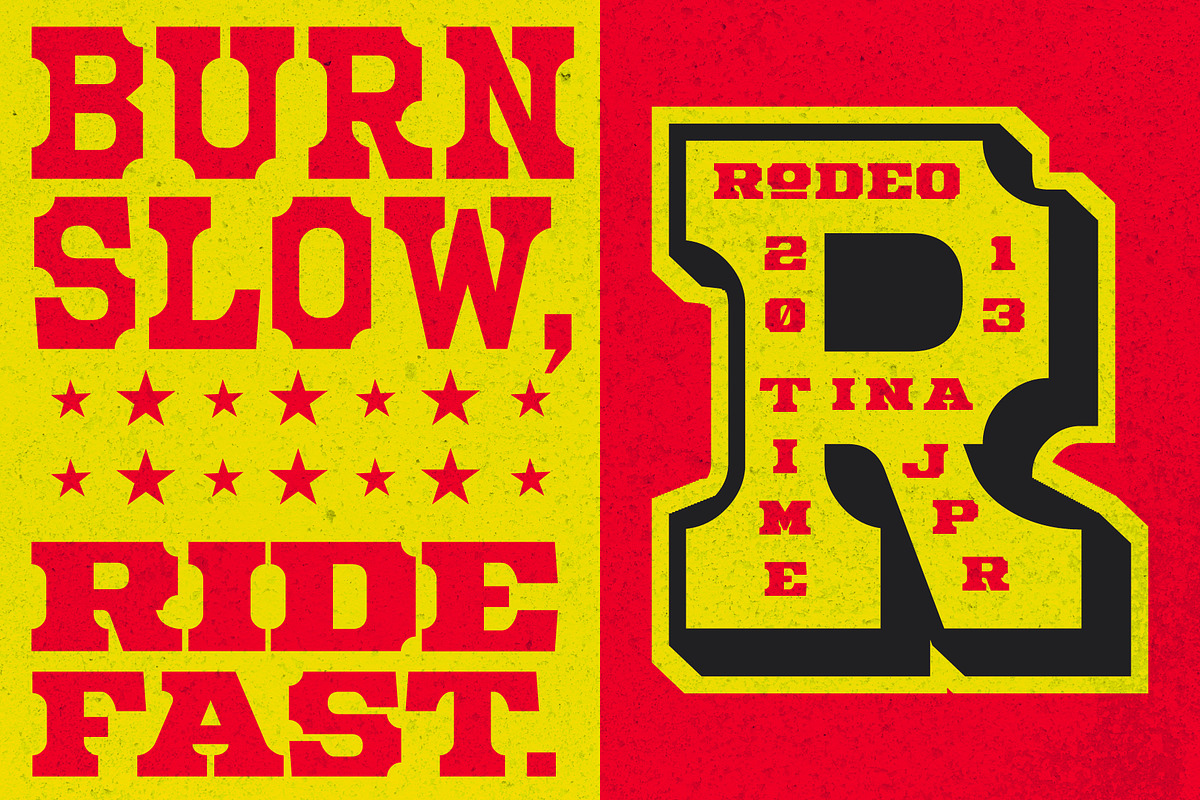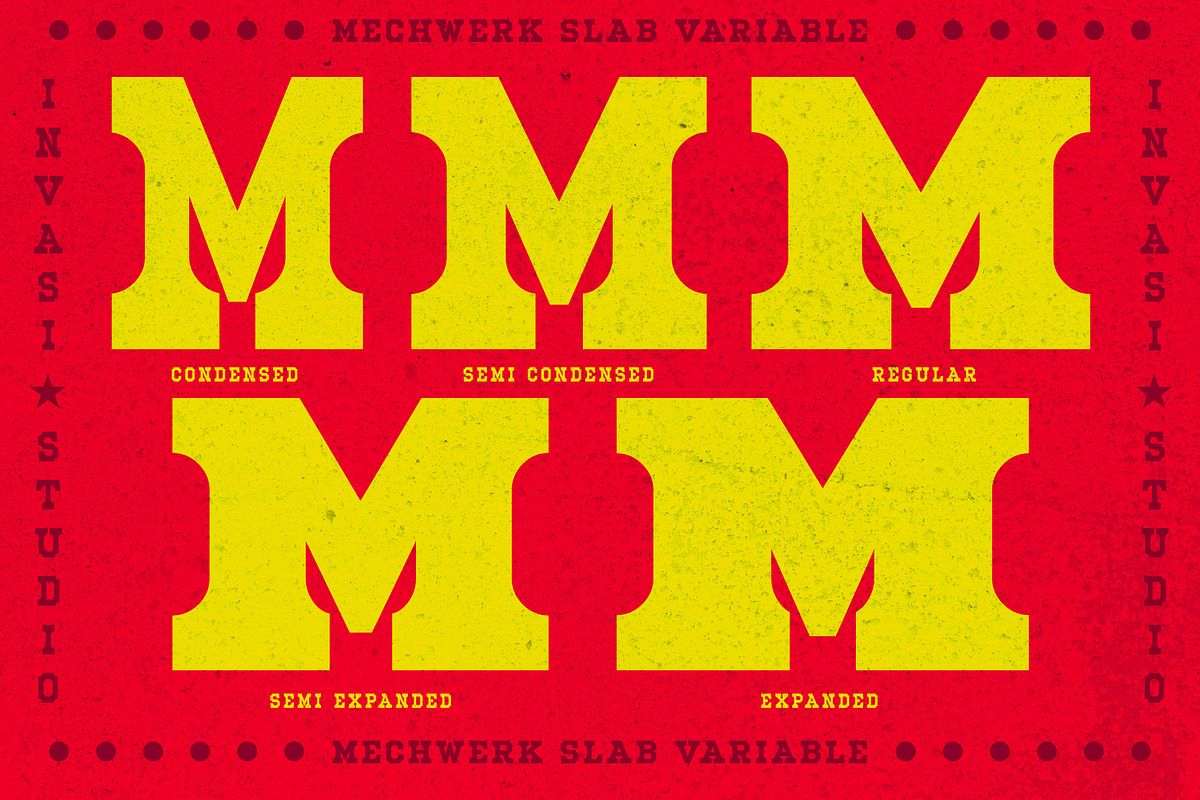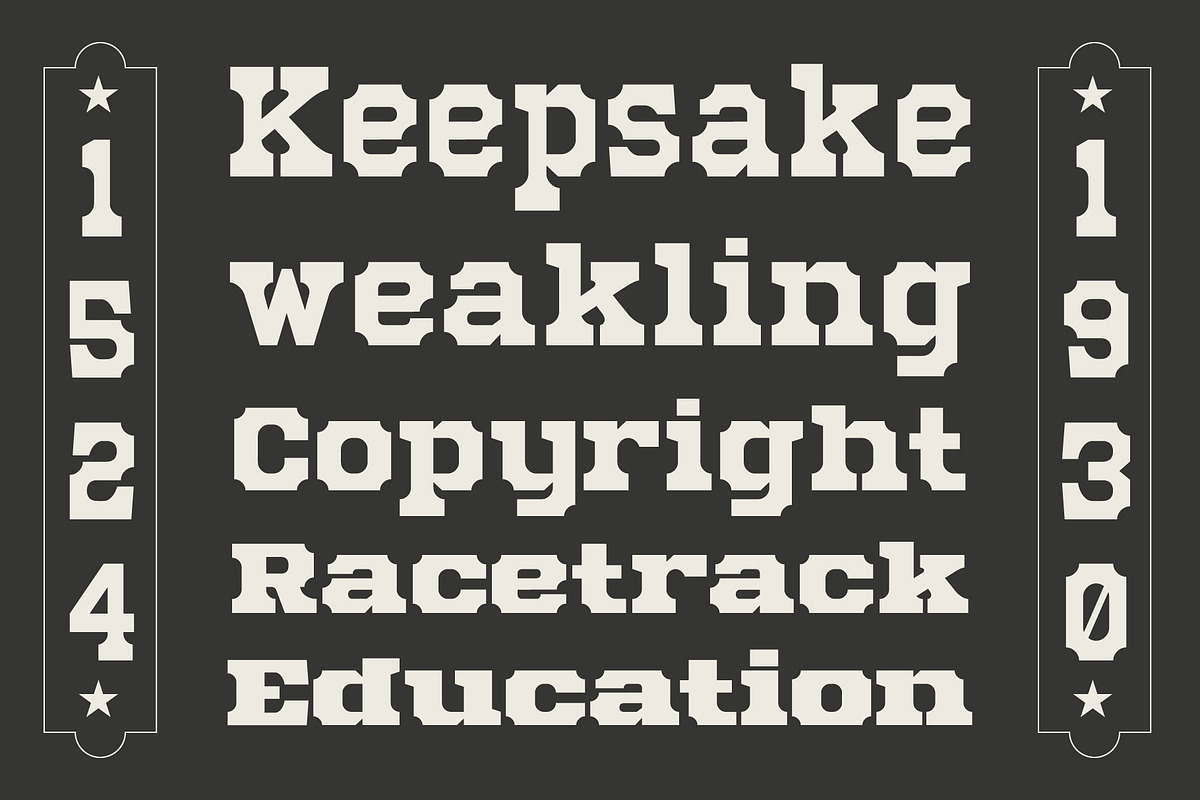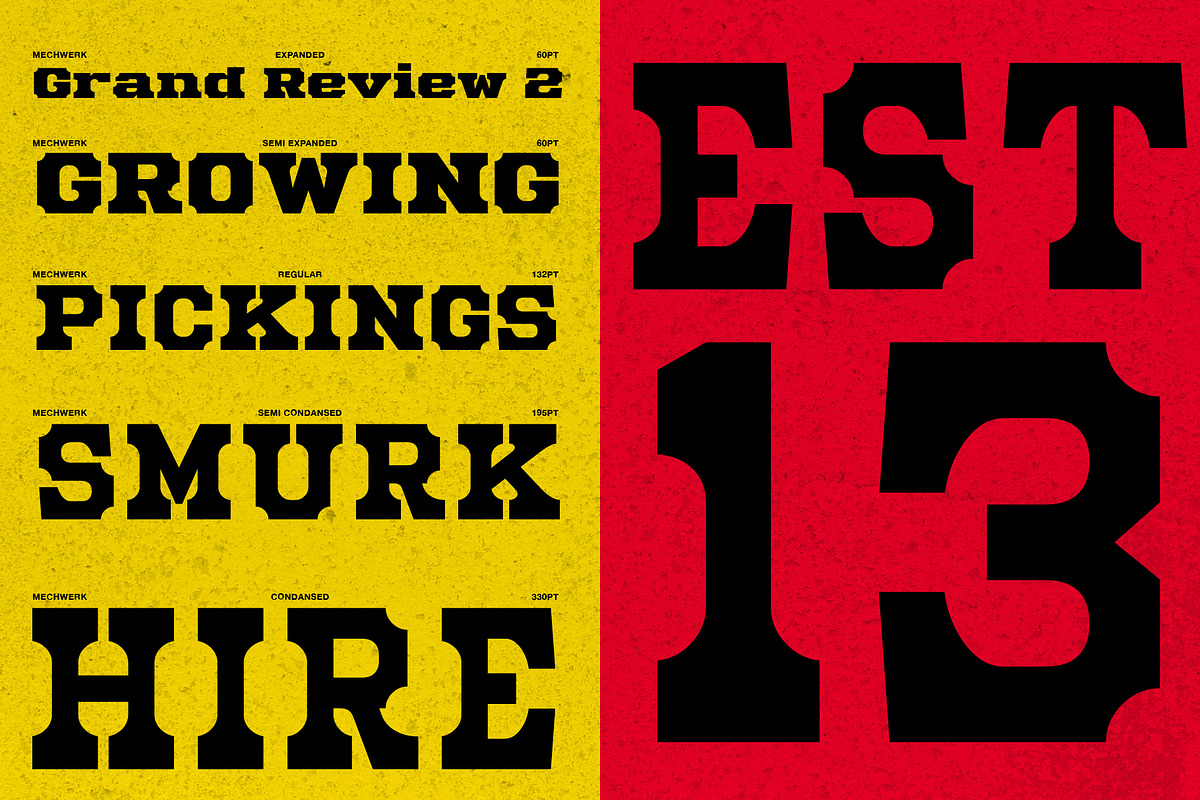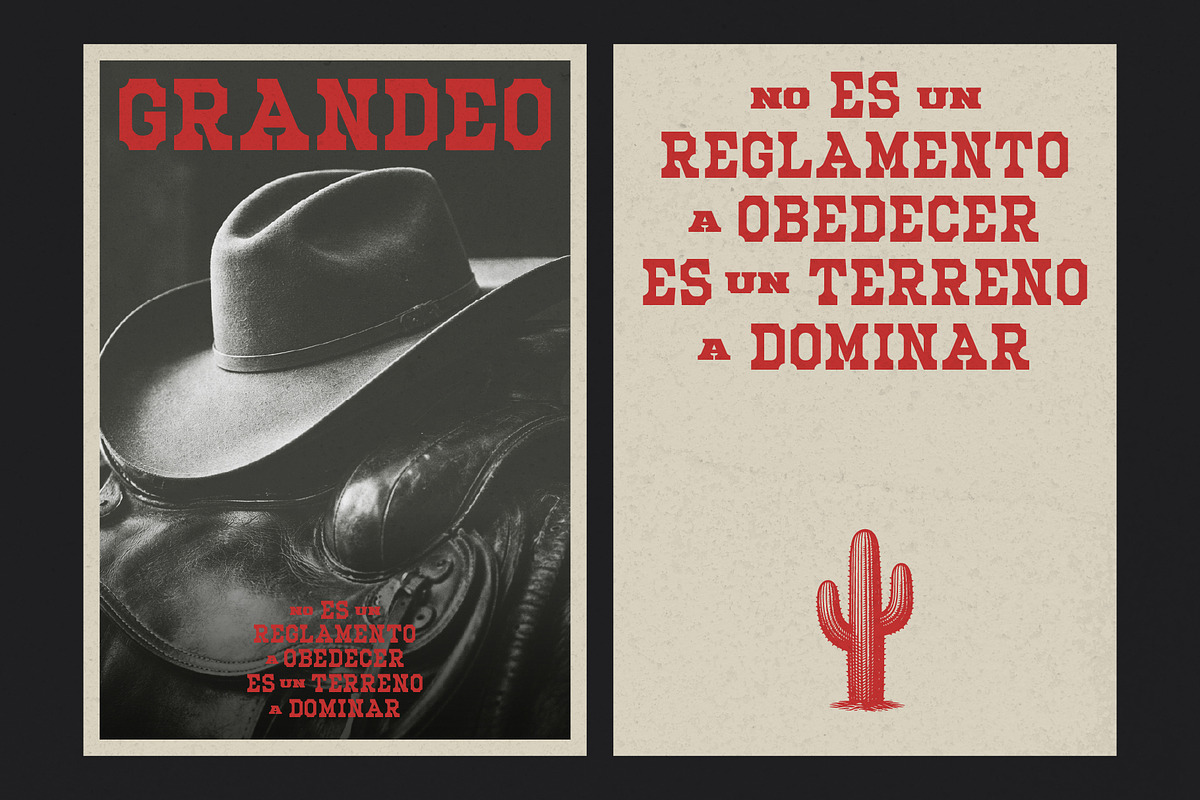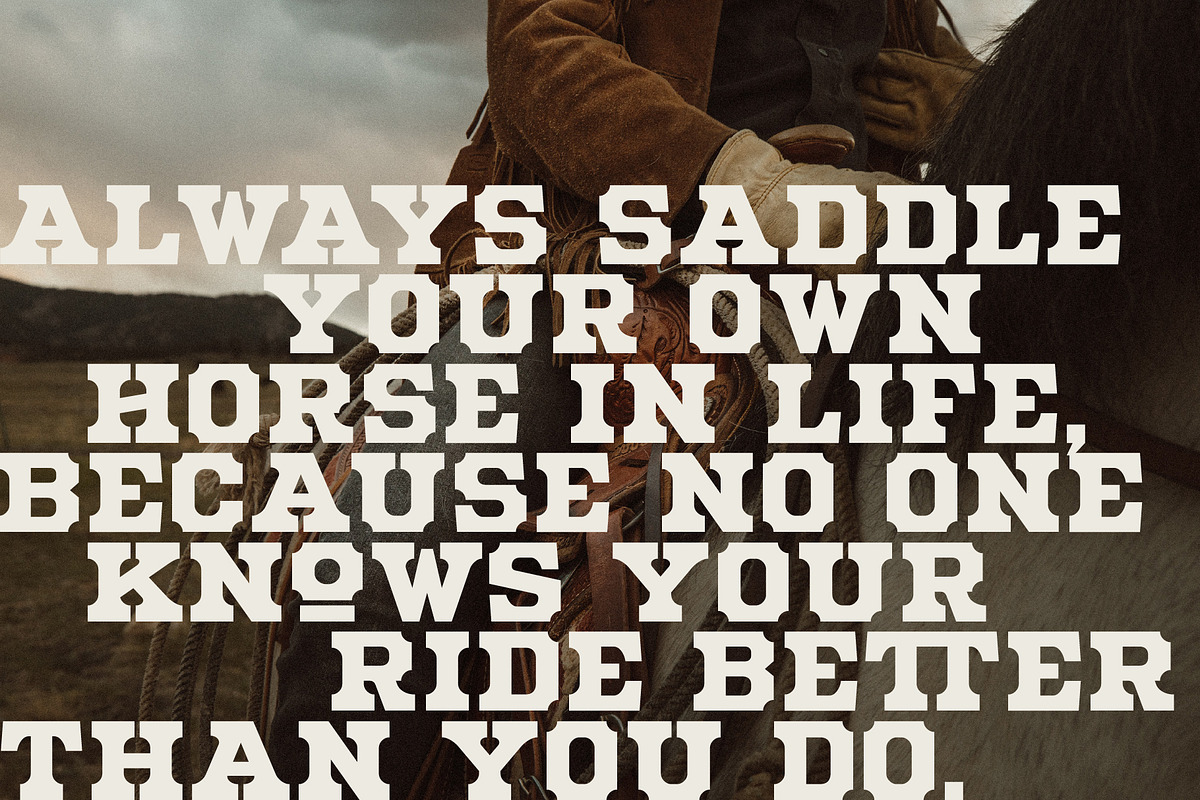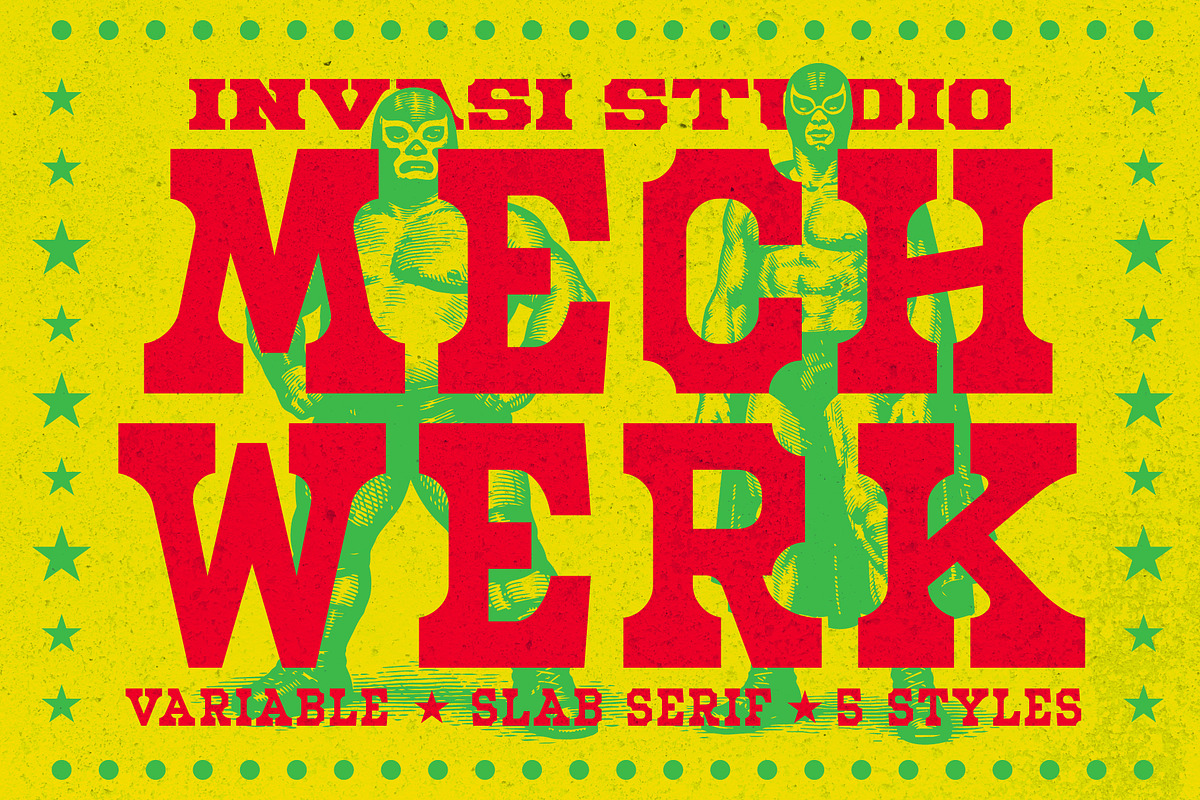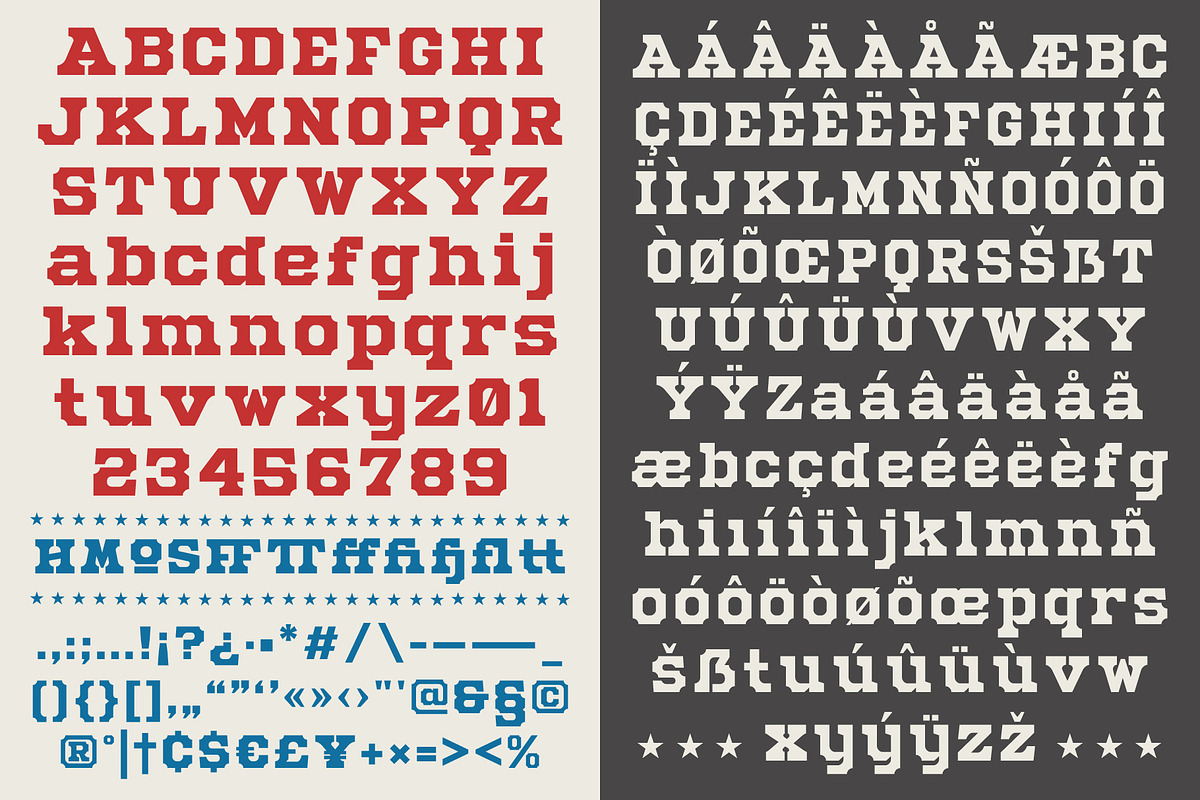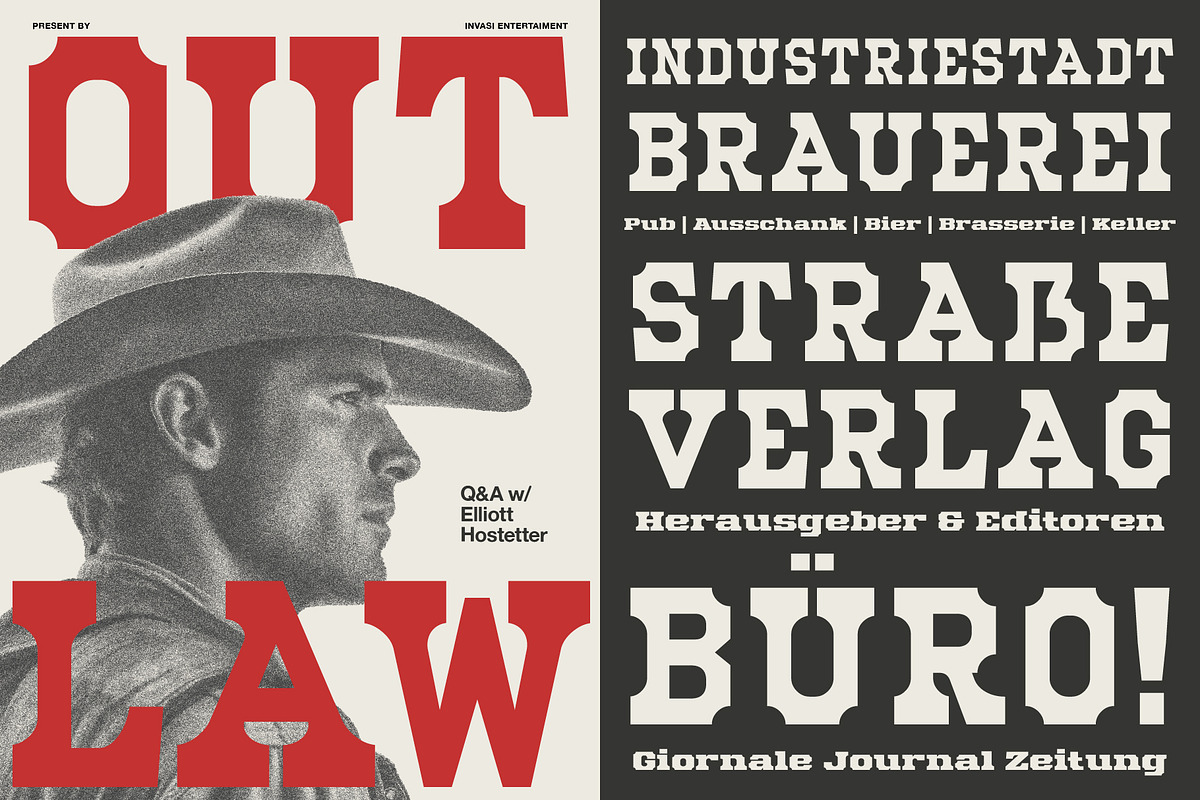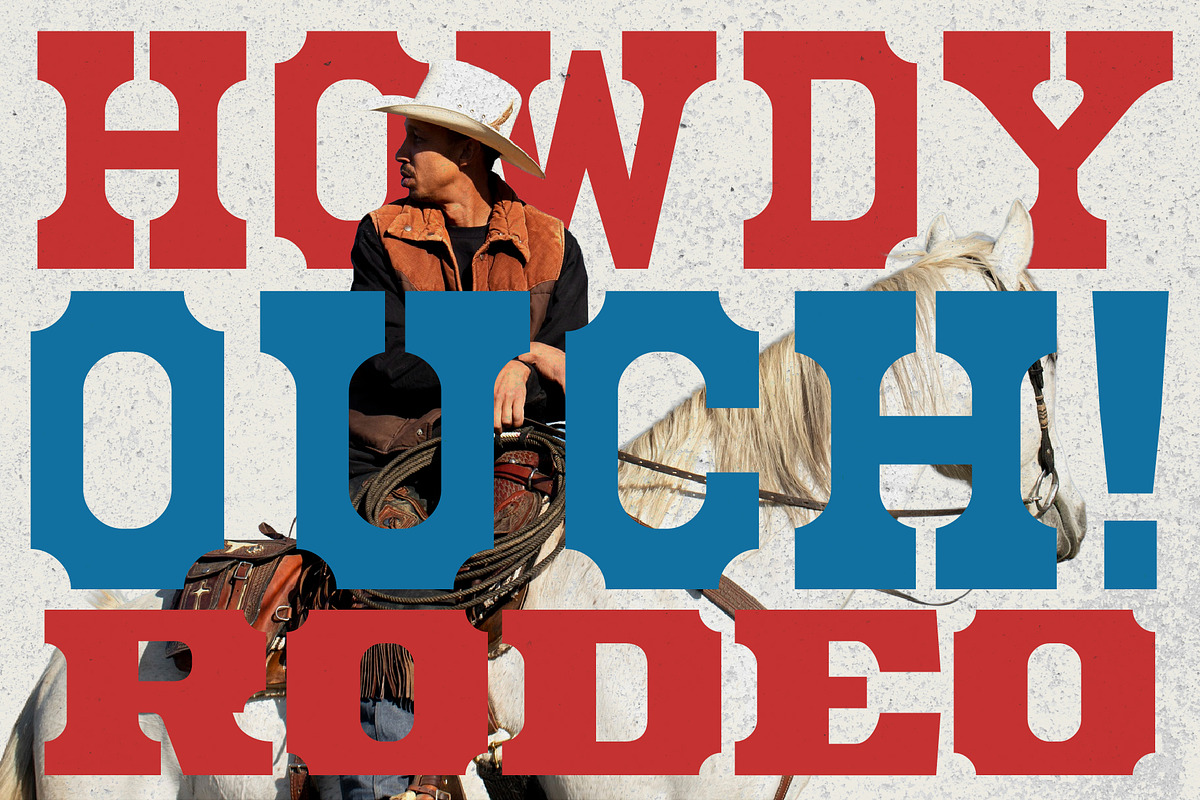
Mechwerk – Slab Serif Family
Mechwerk is a reverse-contrast slab serif family built for bold display typography and strong visual storytelling. Its distinctive structure flips the traditional serif contrast, creating thick horizontal weight and sharp mechanical cuts that give the letterforms a rugged, industrial presence. The result is a typeface that feels powerful, graphic, and instantly recognizable at large sizes.
Inspired by vintage western posters, classic wood type printing, and frontier-era signage, Mechwerk carries the spirit of old rodeo flyers, saloon headlines, and Americana advertising. The sturdy slab shapes and heavy rhythm echo traditional letterpress display types, making it ideal for designs that want to feel authentic, bold, and rooted in heritage typography.
The family includes five width styles — Condensed, Semi Condensed, Regular, Semi Expanded, and Expanded — allowing designers to build flexible typographic systems across headlines, posters, packaging, and branding work. From tight layouts to wide cinematic titles, Mechwerk adapts easily while maintaining a strong and cohesive voice.
- Reverse contrast slab serif construction
- Five width styles: Condensed, Semi Condensed, Regular, Semi Expanded, Expanded
- Western and vintage-inspired display character
- Extended multilingual support (75+ Latin-based languages)
- Numerals, punctuation, and standard symbols
Mechwerk works best in projects where typography leads the visual identity. Western posters, craft beer labels, music artwork, sports graphics, rodeo branding, vintage packaging, and editorial headlines all benefit from its bold presence and reverse contrast personality. The typeface turns headlines into graphic anchors while preserving clarity and structure.